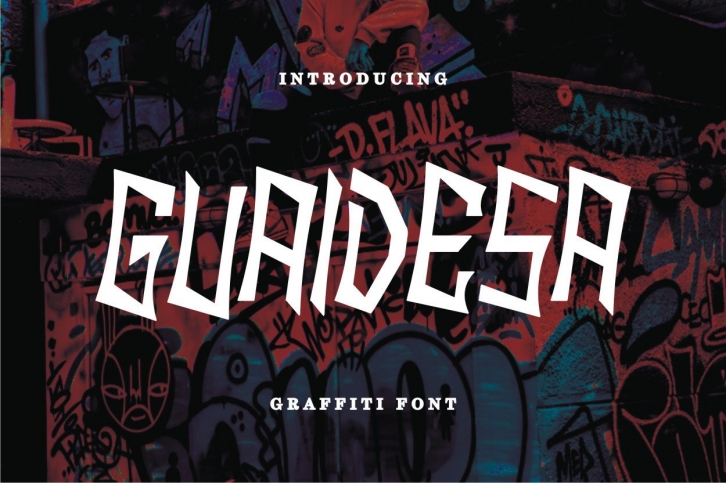
Guaidesa is a strong, graffiti-styled display font that has a futuristic, street art vibe. This font is suitable for designs such as t-shirts, sportswear, logos, advertisements, clothing, and more.